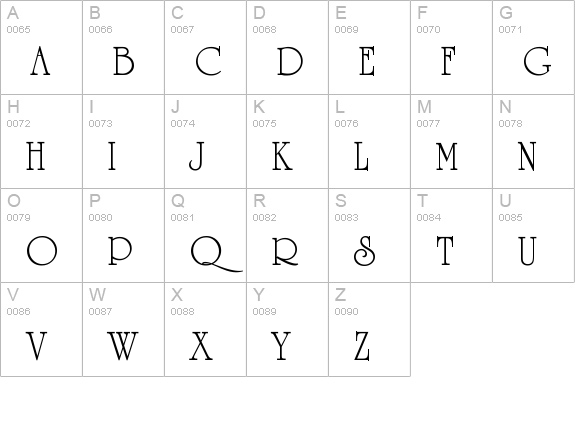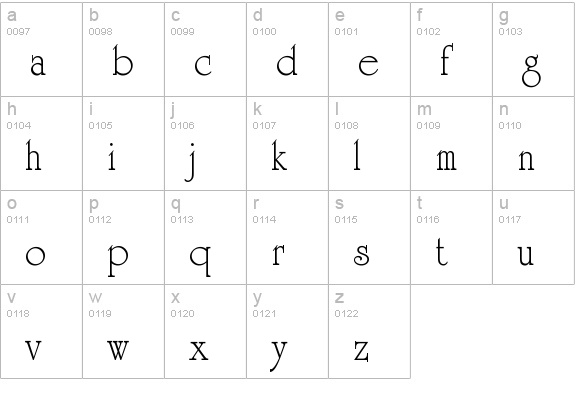
University Roman LET Plain:1.0 Font Details
University Roman LET Plain:1.0 is a classic and timeless font that exudes elegance and sophistication. With its clean lines and precise letterforms, this font is perfect for adding a touch of refinement to any project or design. Designed by Adrian Frutiger in 1989, University Roman LET Plain:1.0 has stood the test of time and remains a popular choice among designers and typographers. Its balanced and symmetrical proportions make it highly versatile, allowing it to be used in a wide range of applications, from branding and logos to headlines and body copy. One of the standout features of University Roman LET Plain:1.0 is its readability. The clarity of the letterforms ensures that every word is easily legible, even at smaller sizes. This makes it an excellent choice for long-form content such as books, magazines, and academic papers. What sets University Roman LET Plain:1.0 apart is that it is freely available to download at FontsMarket.com. This means that you can access this beautiful font without any cost, allowing you to enhance your designs without breaking the bank. Whether you are a professional designer or a student working on a project, this font provides a high-quality and cost-effective solution. The versatility and timeless appeal of University Roman LET Plain:1.0 make it a must-have for any designer's toolkit. Its clean and sophisticated aesthetic elevates any project, giving it a touch of elegance and professionalism. Download University Roman LET Plain:1.0 today from FontsMarket.com and discover the endless possibilities this font has to offer.